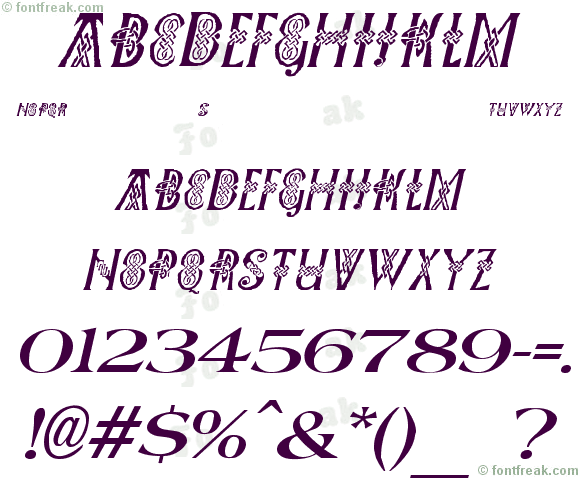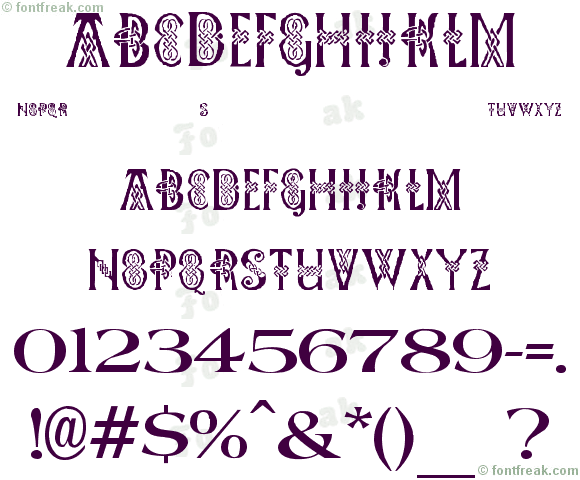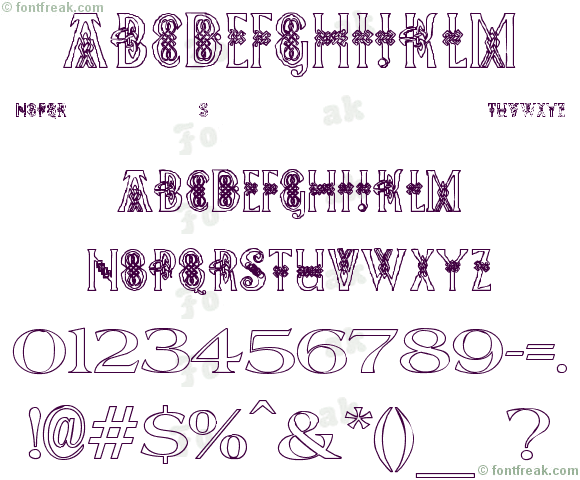
Pee's Celtic Plain, crafted by Cybapee Creations, is a decorative font that embodies a unique blend of traditional Celtic influences and modern design sensibilities. This font is characterized by its bold strokes and intricate decorative elements, which include stylized knotwork and pointed serifs that evoke a sense of heritage and artistry. The stroke weight is consistent, lending a solid appearance, while the spacing is well-balanced, ensuring legibility even in larger texts. The font's italic style adds a dynamic flair, making it an eye-catching choice for various applications.
This versatile font is perfect for creating wedding invitations that seek to capture a romantic and timeless appeal. Additionally, it works wonderfully for event flyers, especially those with a cultural or artistic theme. The distinctiveness of Pee's Celtic Plain makes it an excellent choice for restaurant menus, particularly for establishments that wish to highlight a rustic or heritage-focused ambiance. Graphic designers will find this font particularly useful for book covers or album artwork that aims to convey a sense of tradition and craftsmanship.
What sets Pee's Celtic Plain apart from other decorative fonts is its ability to harmonize traditional design elements with contemporary usability. This font not only enhances visual appeal but also tells a story, making it a fantastic choice for anyone looking to add a layer of depth to their projects. With its availability as a Pee's Celtic Plain font free download, it becomes an accessible tool for creativity and expression.